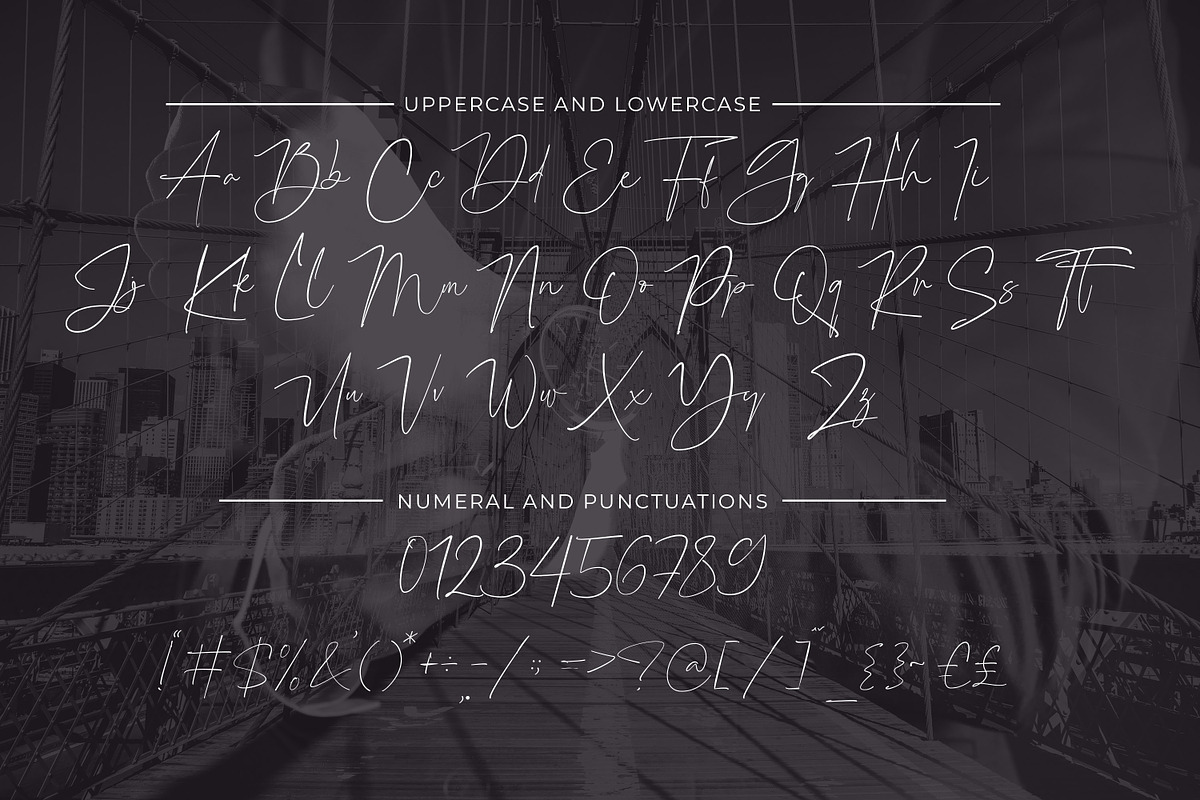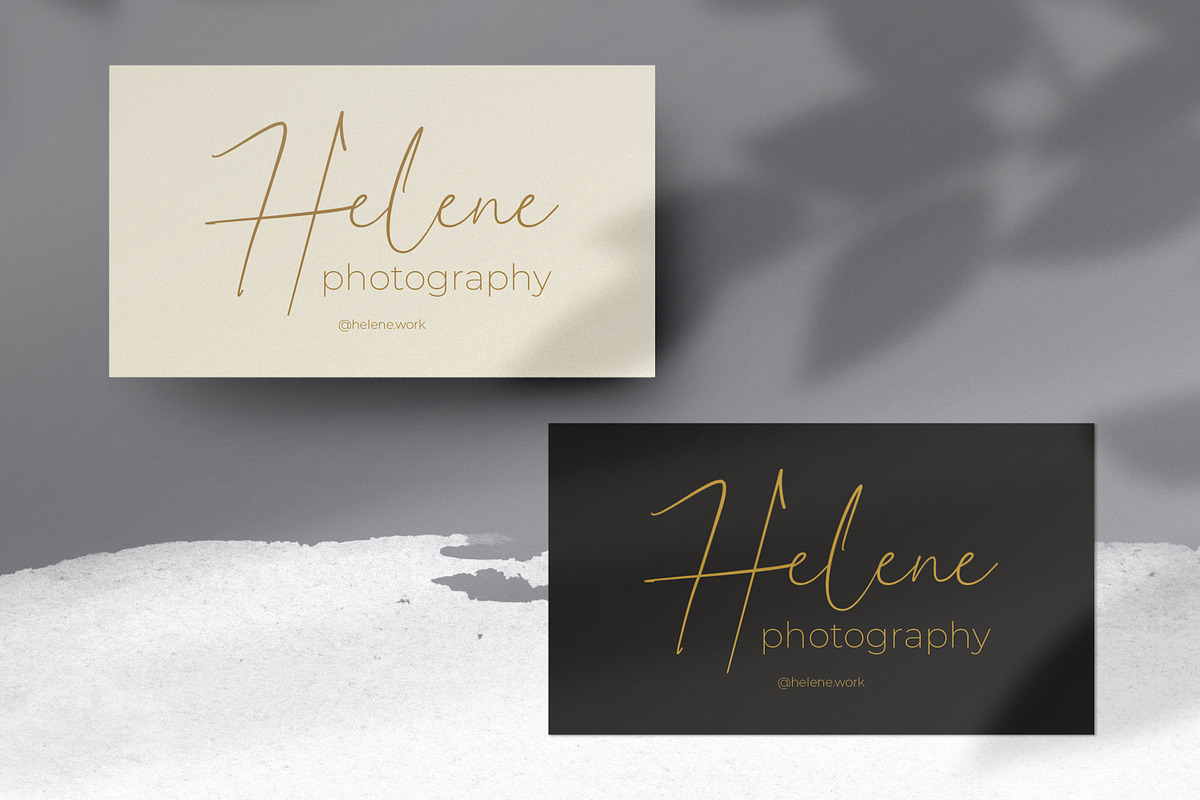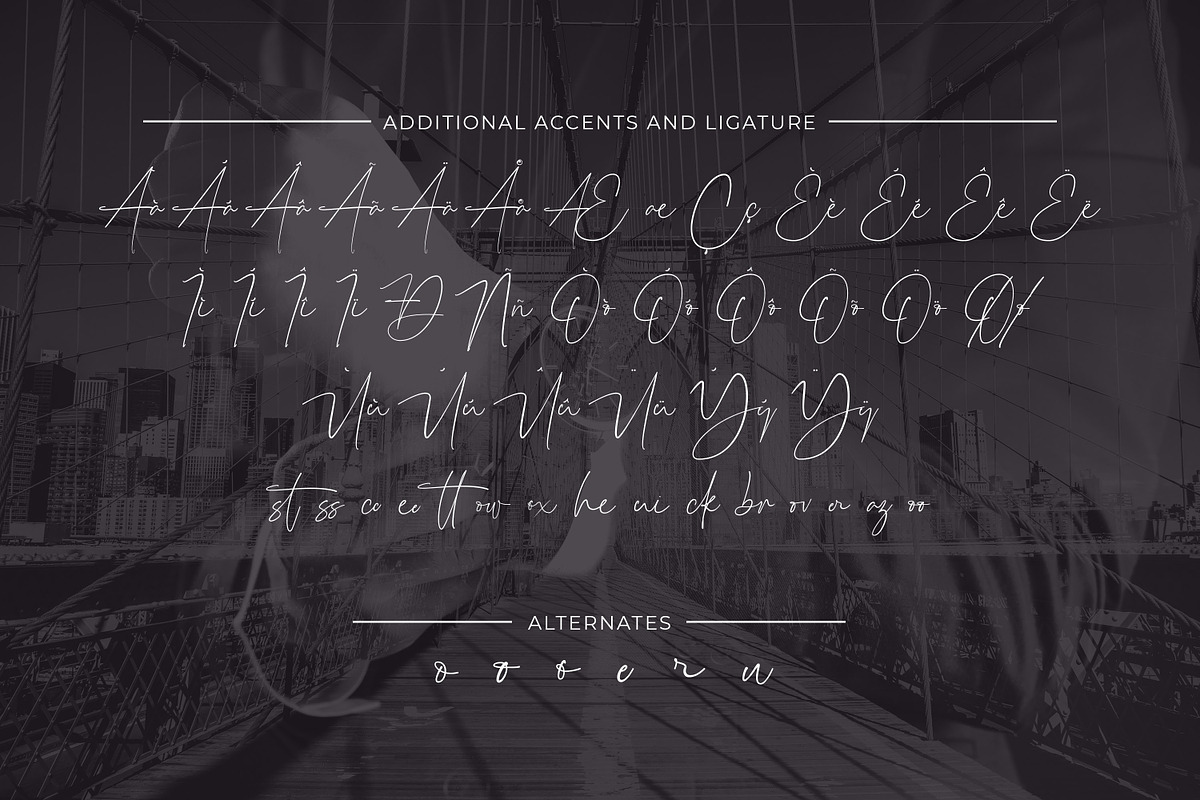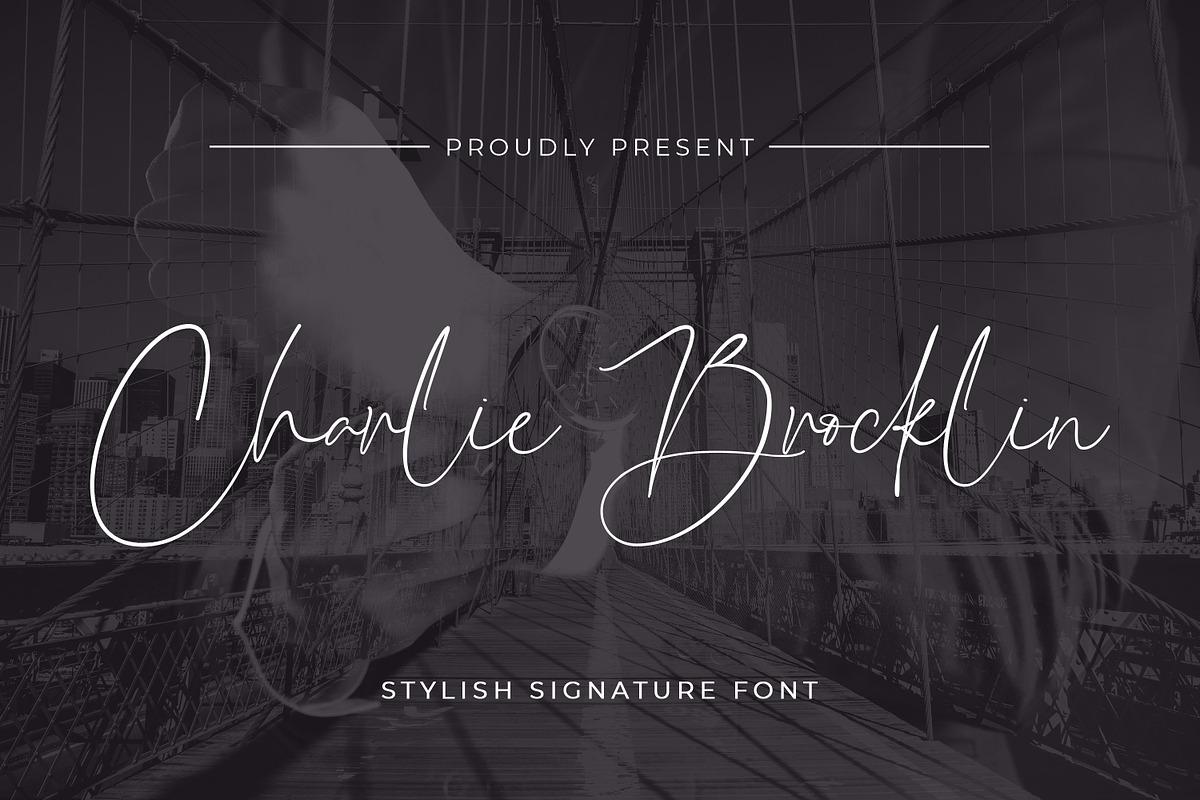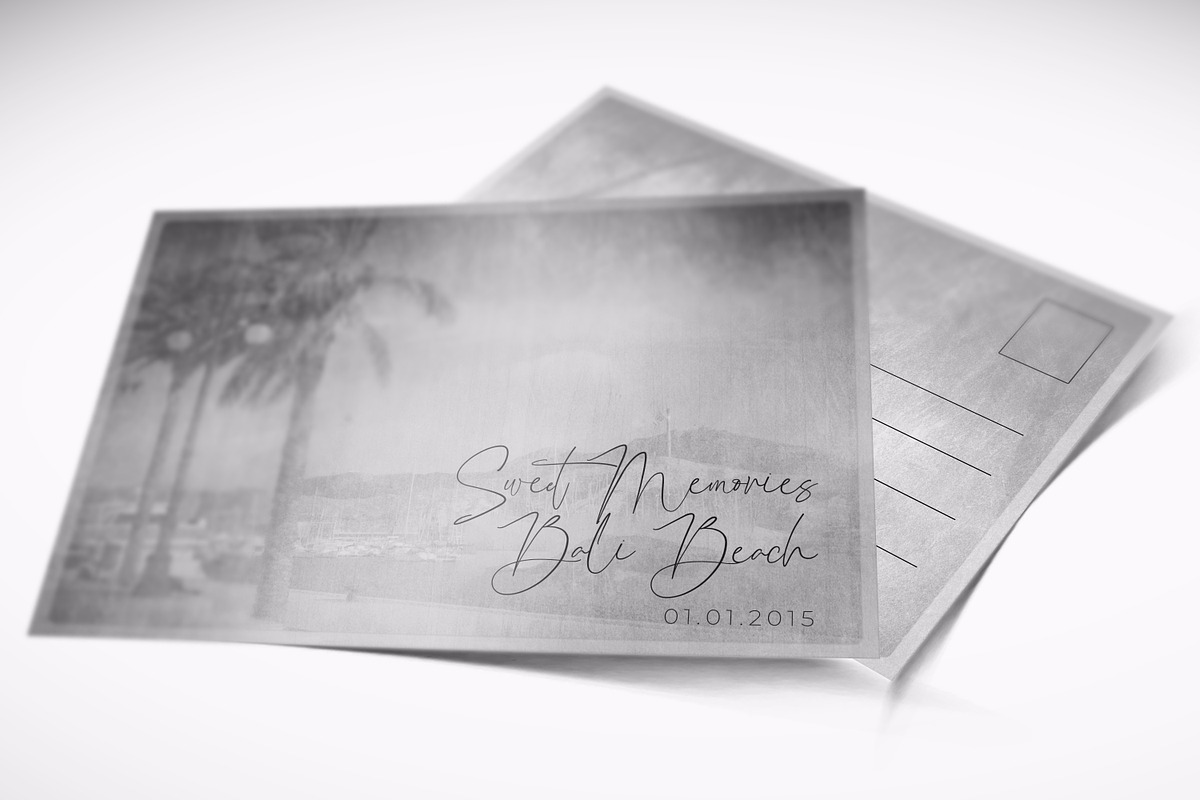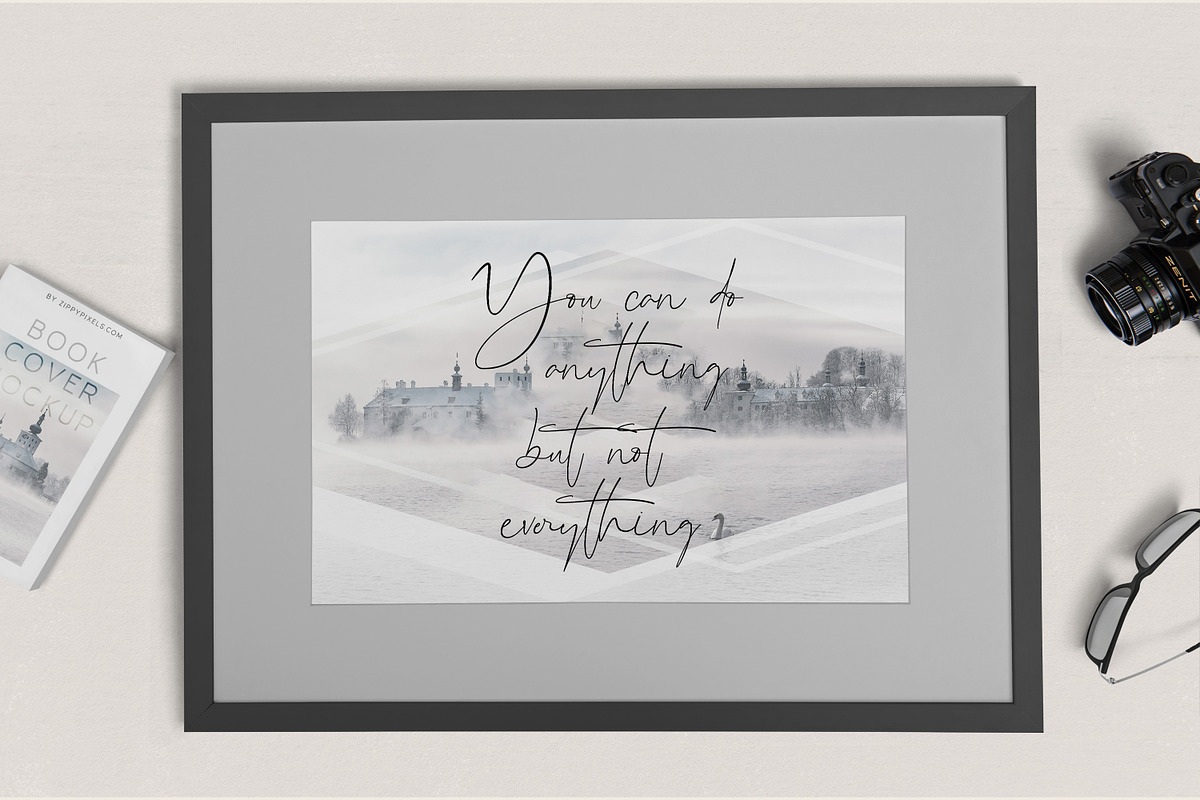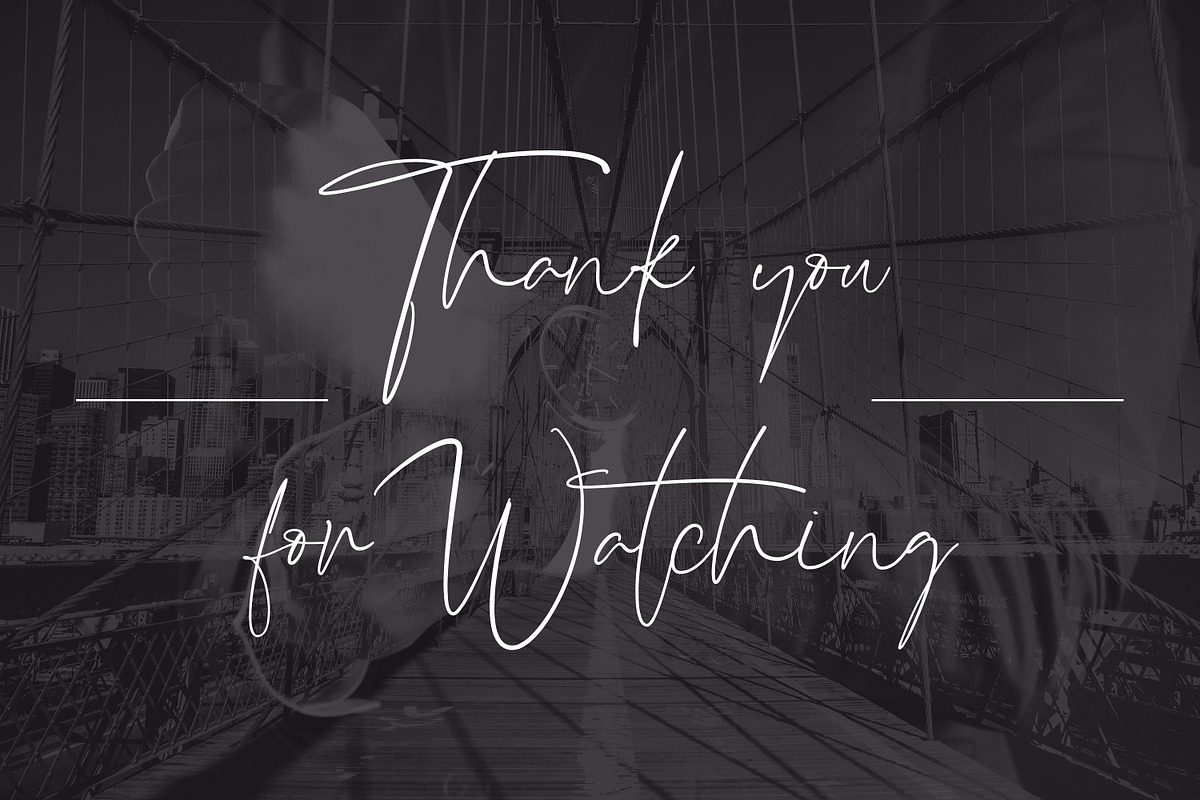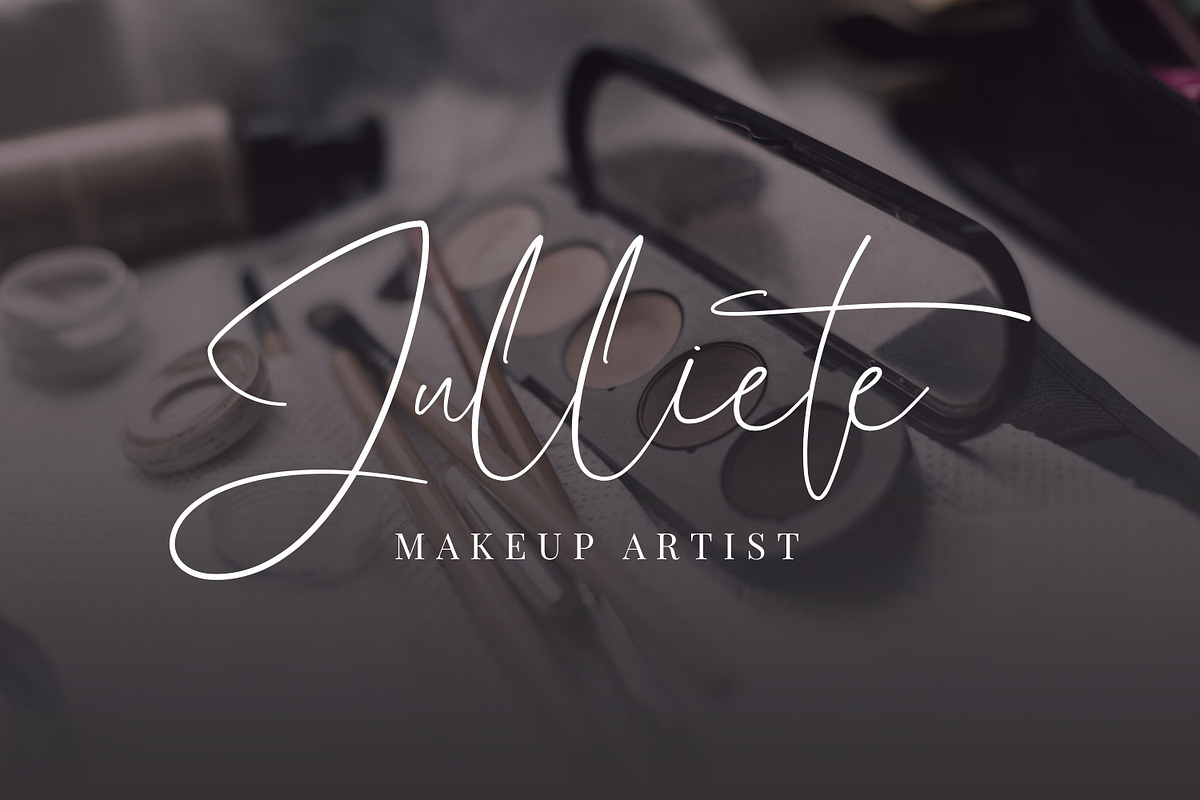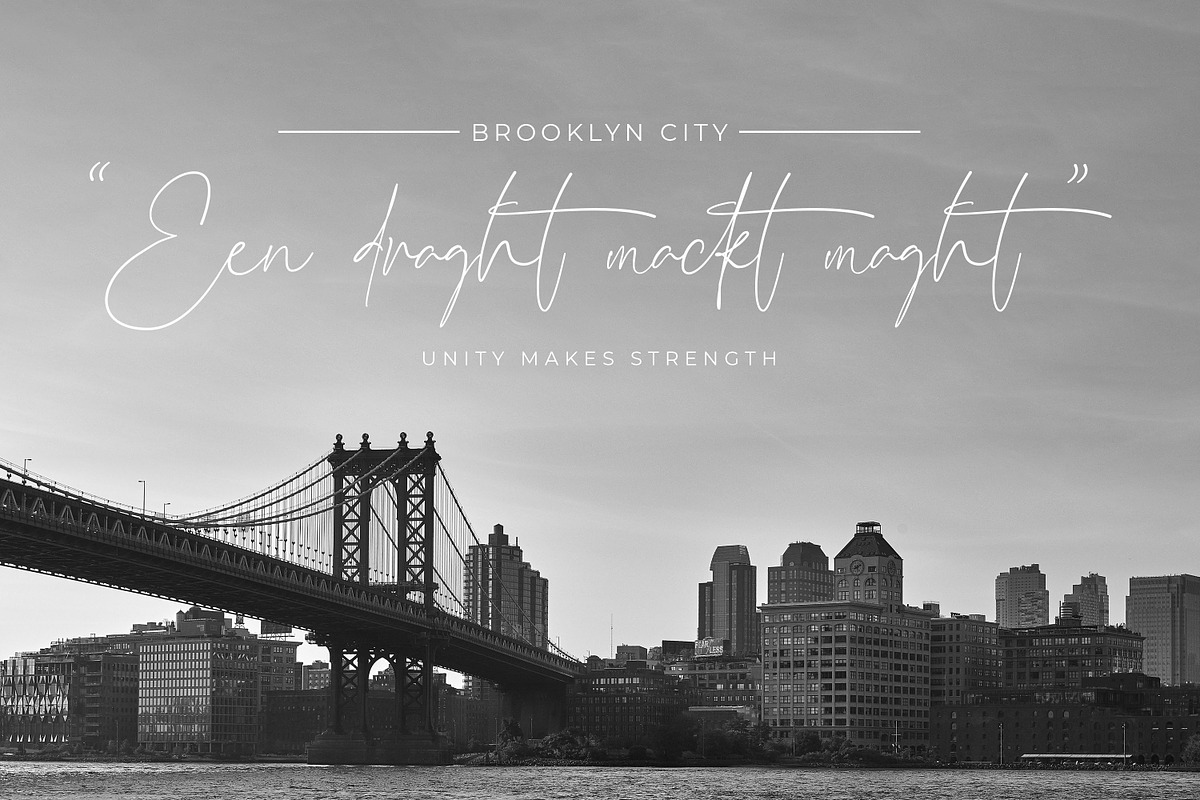
Charlie Brocklin - Stylish Ligature
Introducing Charlie Brocklin - Stylish Ligature Script is a Quality script that is written casually and quickly with 15 ligature. Letters are made with Sign on paper. Then scanned and carefully drawn into vector format.
Charlie Brocklin is perfect for homeware designs,branding projects, Logo, design, Quotes, Product packaging, Photography, Watermark
- Alternate glyphs